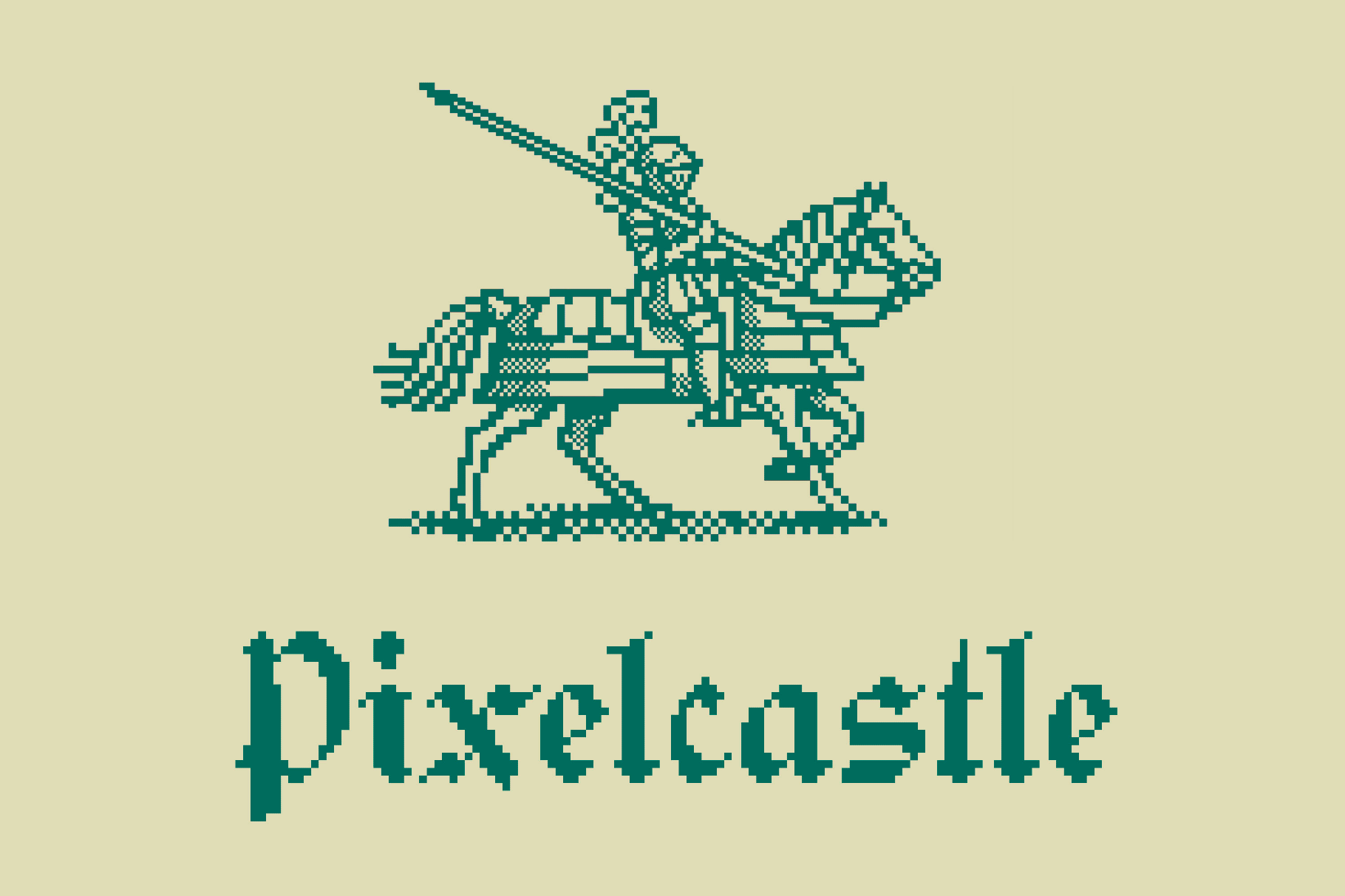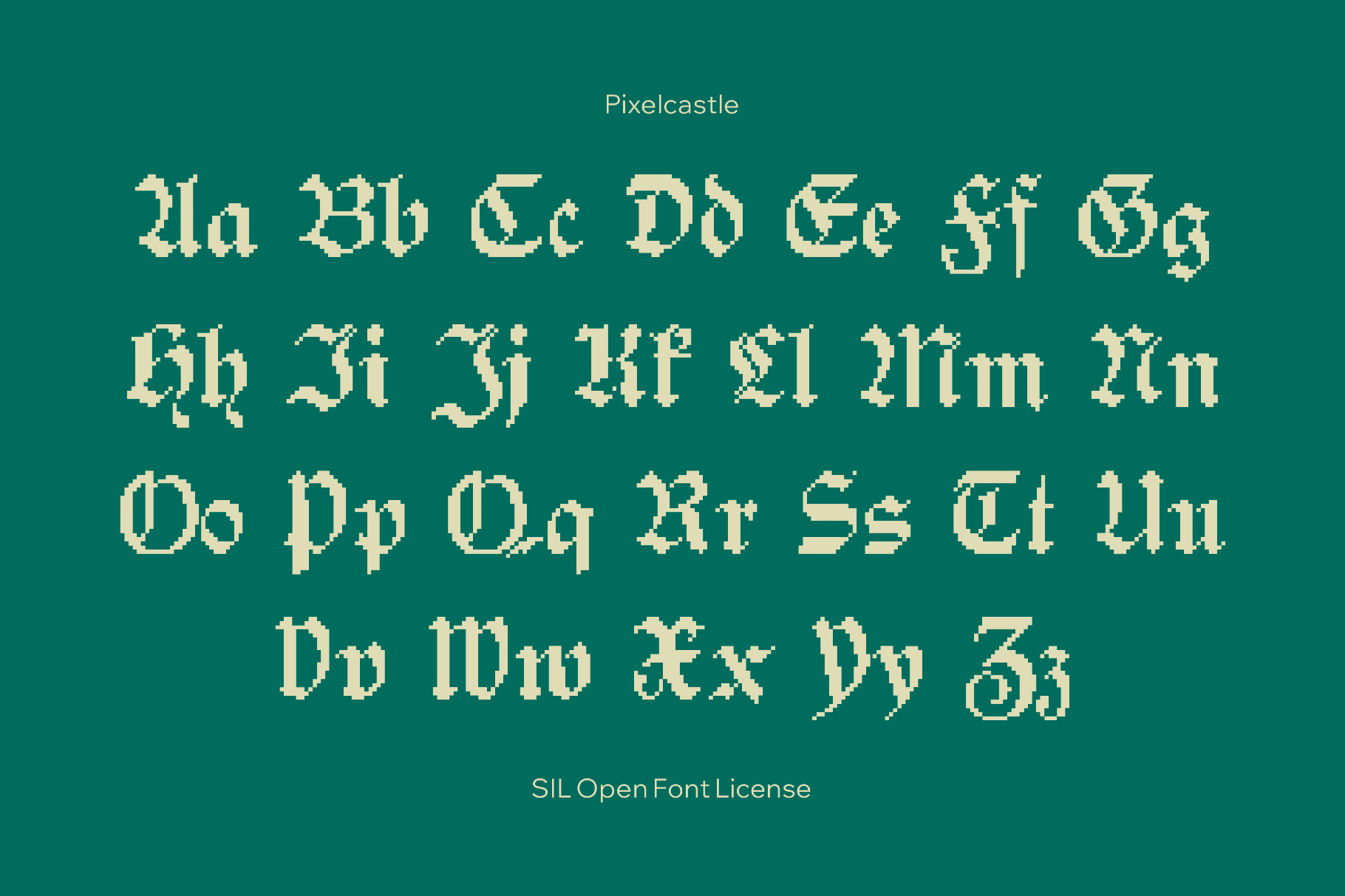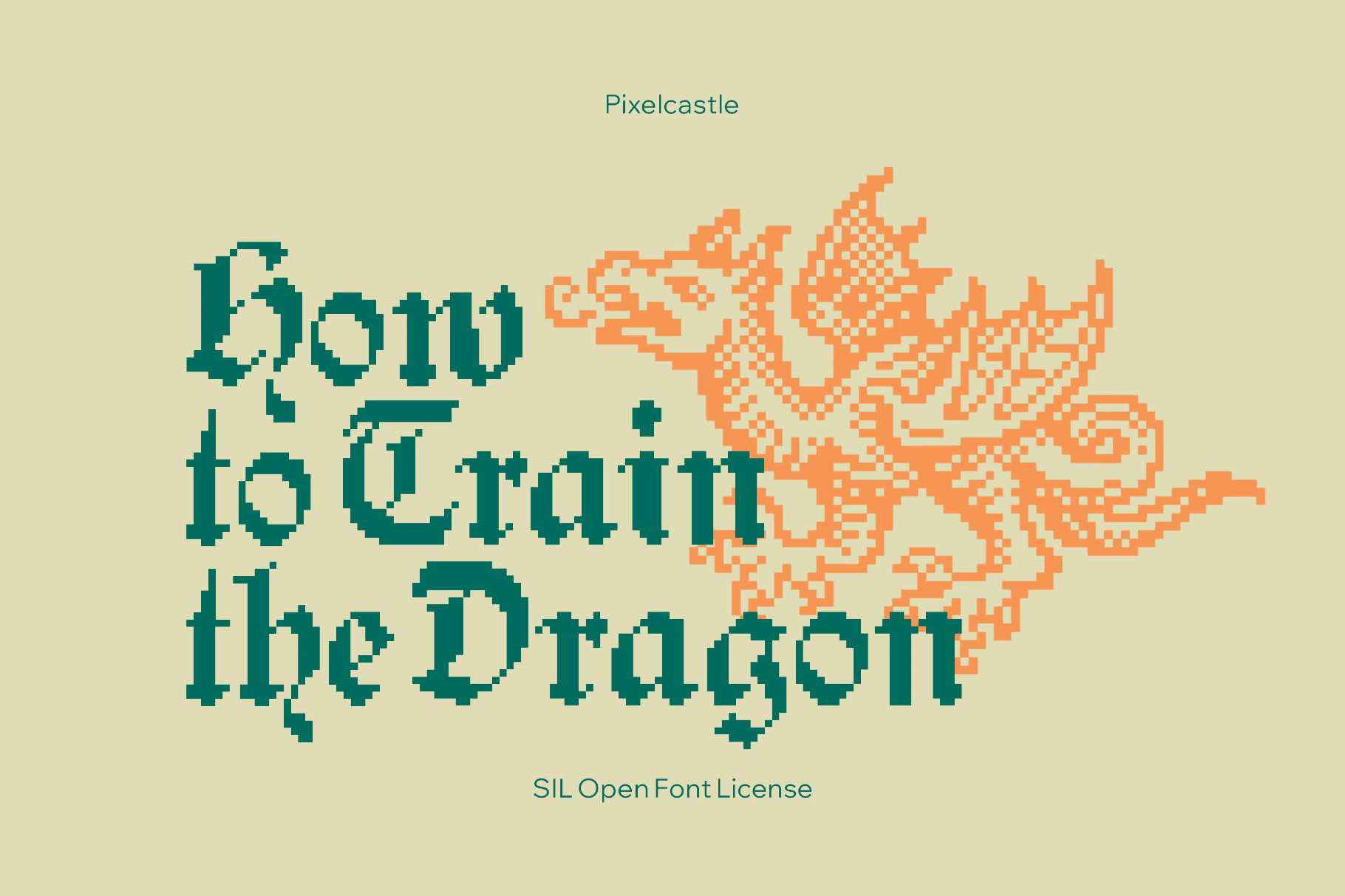
Pixelcastle is a blackletter display font inspired by the visual language of medieval inscriptions. Angular strokes and stepped curves stack like masonry, with proportions intact. The texture combines a gothic mood with clean bitmap construction.
Pixelcastle works well for game titles, fantasy or historical UI, dungeon maps, retro RPG branding, metal or darkwave album artwork, magazines, posters, and logos. It also suits event graphics, book covers, and merch.
- Uppercase and lowercase Latin letters, numbers, and basic punctuation.
- Basic set of international characters.
- Dingbats for icons, separators, and decorative details.